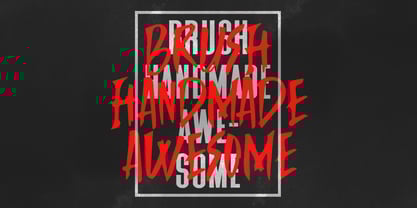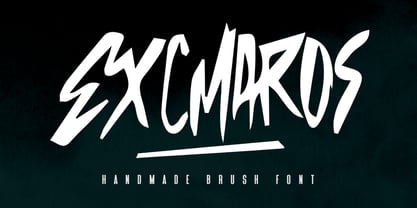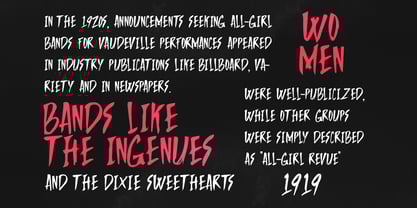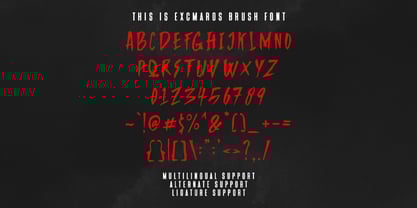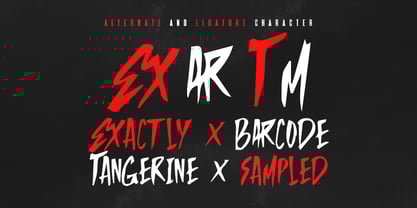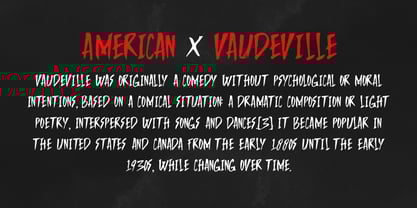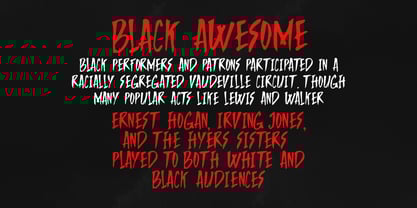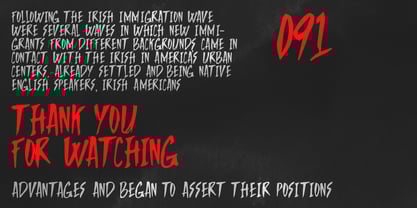
MC Excmaros
by Maulana Creative
The MC Excmaros Font Family was designed by Gilang Maulana and published by Maulana Creative. MC Excmaros contains 1 styles. More about this family
Give your designs an authentic brush handcrafted feel. “Excmaros Handmade Brush Font” is perfectly suited to signature, stationery, logo, typography quotes, website header, branding and more.
Designers: Gilang Maulana
Foundry: Maulana Creative